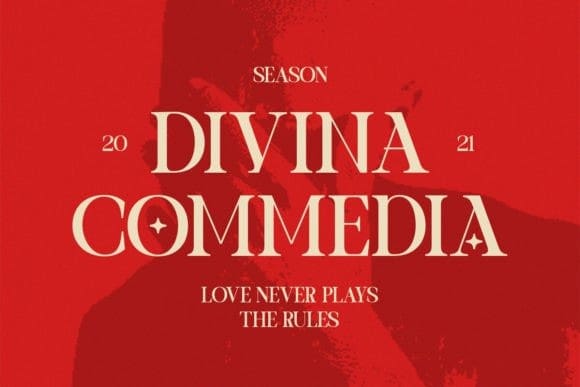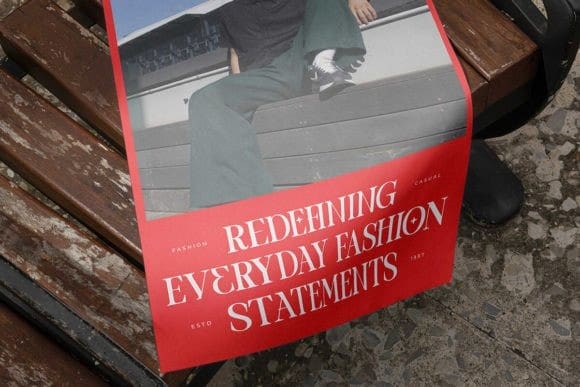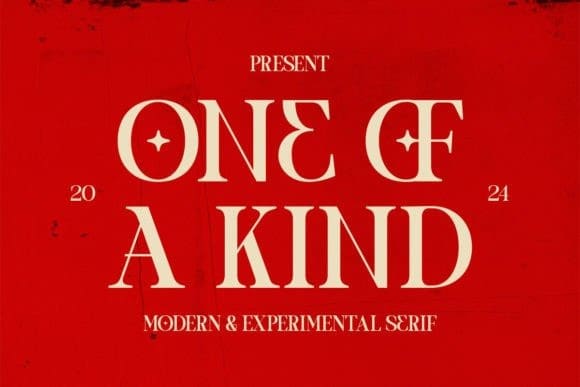
One Of A Kind Font
One Of A Kind Font is a stylish and elegant serif font that stands out with distinctive grace. Meticulously crafted letterforms embody timeless sophistication, setting it apart. Ideal for projects demanding a refined and unique typeface, One Of A Kind adds a touch of classic elegance and individuality to your designs.